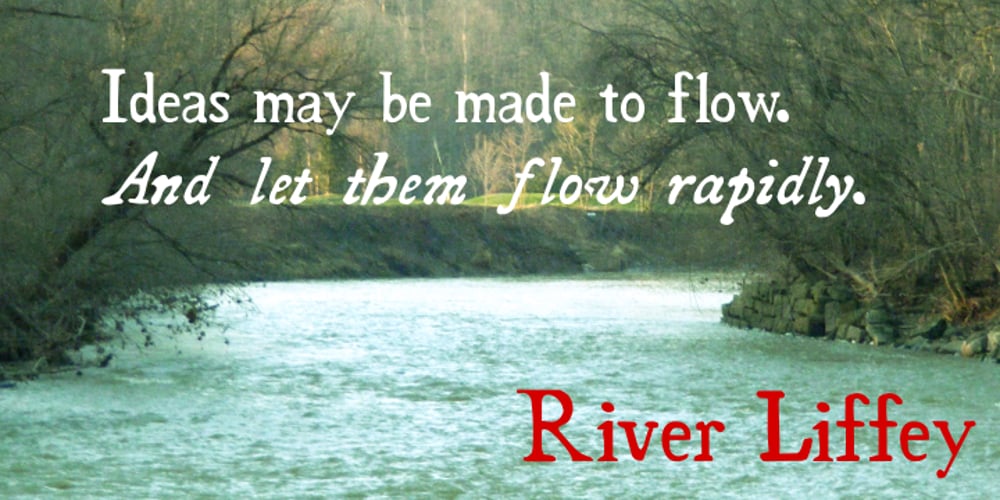
River Liffey Font Family was designed by Shane Brandes and published by Proportional Lime. River Liffey contains 1 styles and family package options. This typeface was inspired by a typeface used by James Williams an Irish printer active in Dublin during the late 18th century, who was heavily involved in the book trade and offered such tomes as Hume’s “History of England.” He aggressively tried to undercut the London publishers by offering quality reprints. Copyright law then was not as strong as it is now. Early books, have a mysterious rhythm to the appearance of the text, due to small variances in letters caused by casting irregularities and ink transfer from the press. This very supposed defect, which is presented in this typeface, is a pleasing effect against the sterile regularity of modern printing technology. This font has been updated, May 2011, to Version 2.0 expanding the original character set by over 60% to 900+ characters and also adding the possibility of bold type.